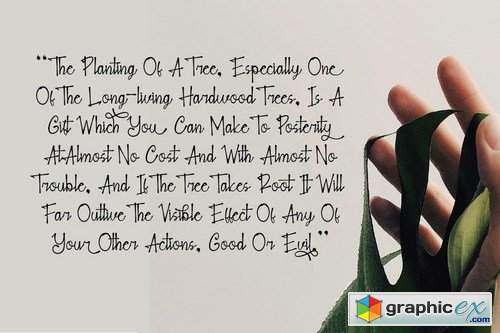
Blank Note - Ink Handwritten
Blank Note is a ink handwritten script font. Natural and elegant font. the font look like real handwritten letter make it perfect for logo, invitation, stationery, wedding designs, social media posts, advertisements, product packaging, product designs, label, photography, watermark, special events or anything.